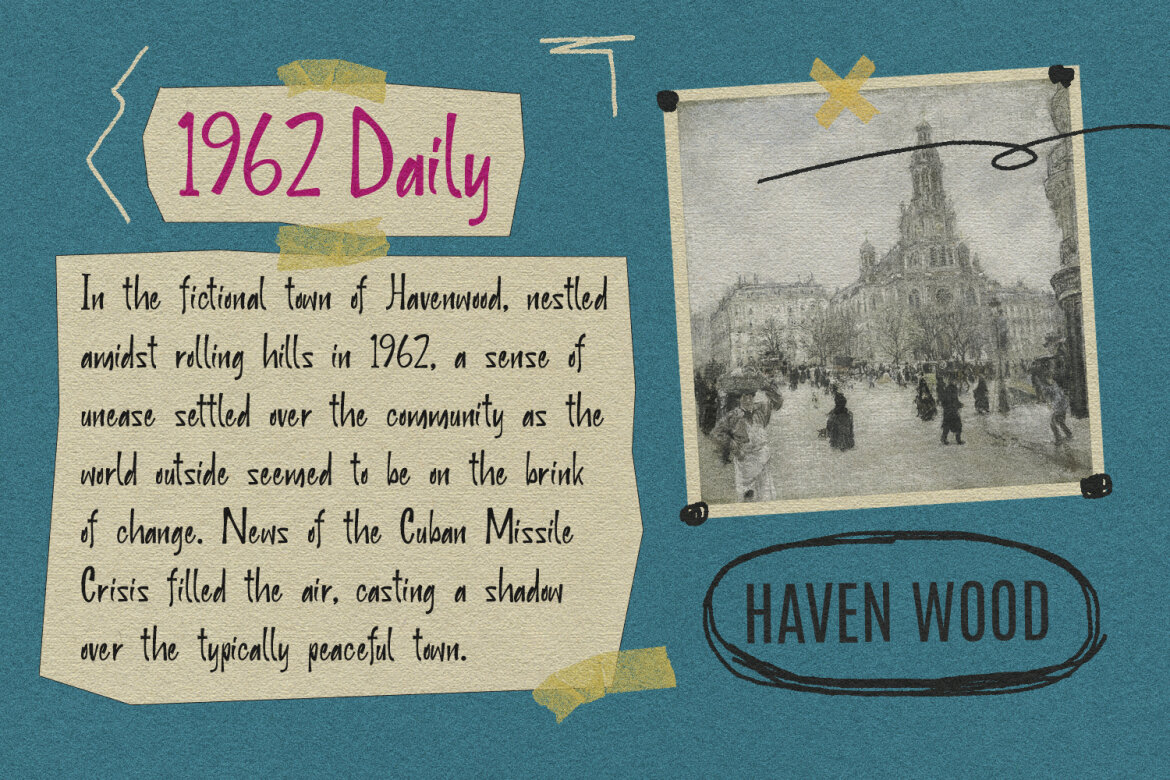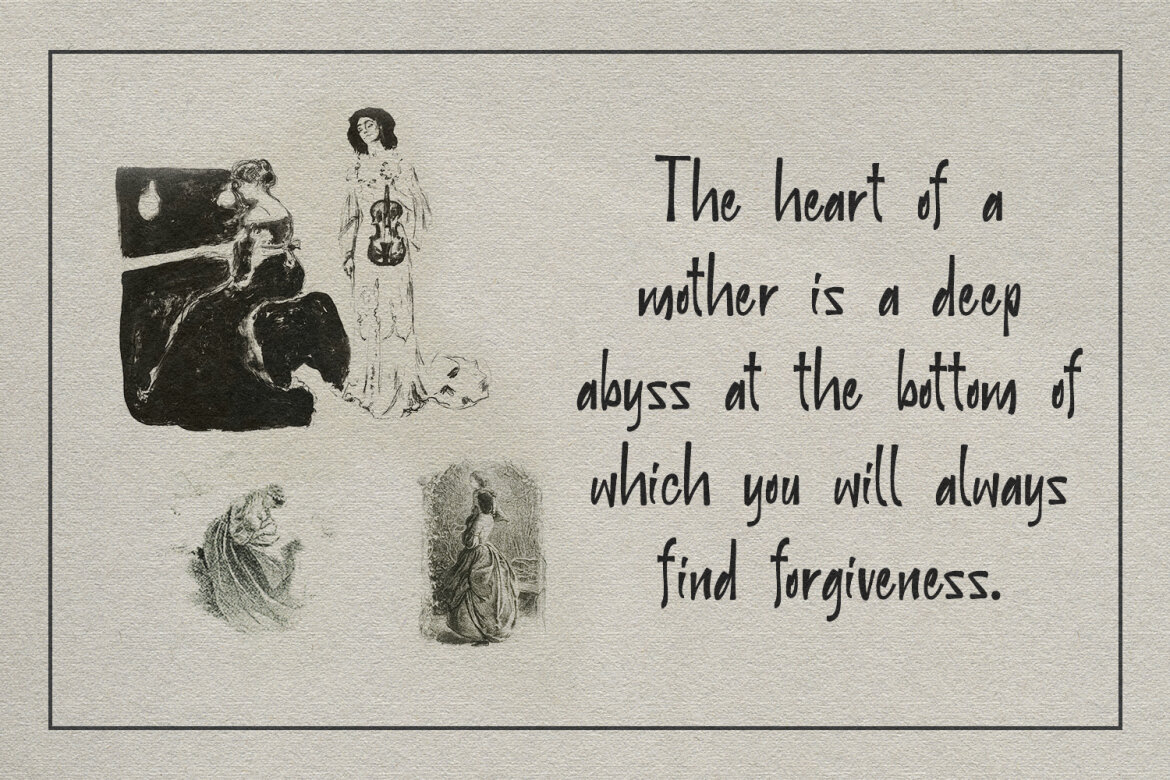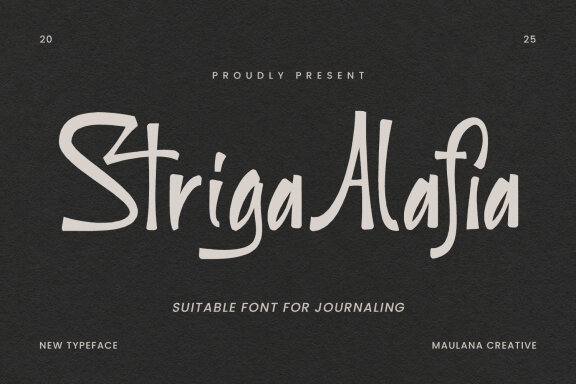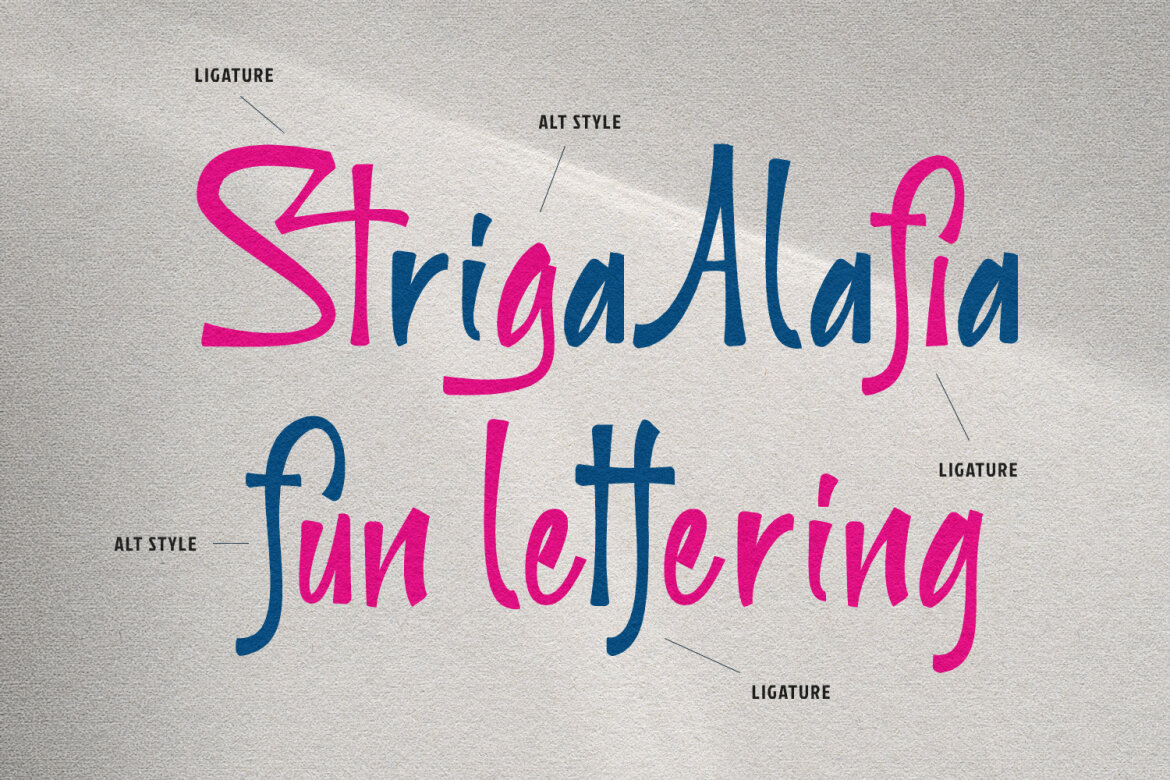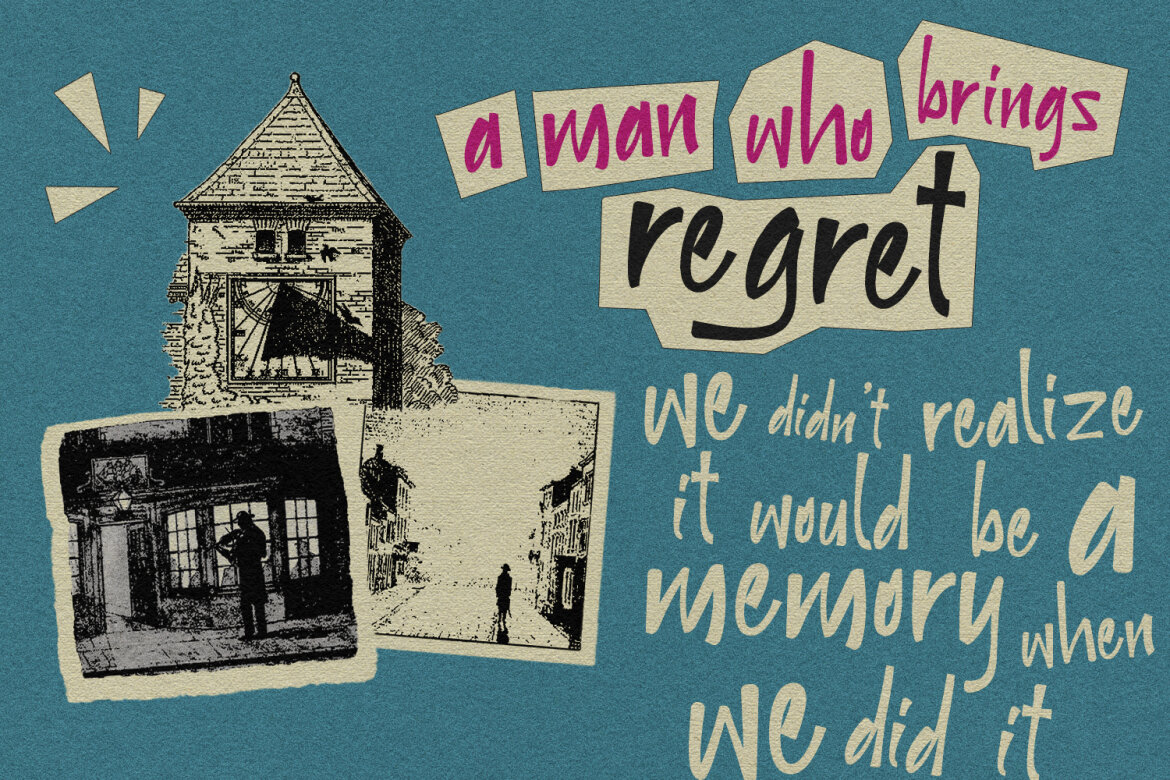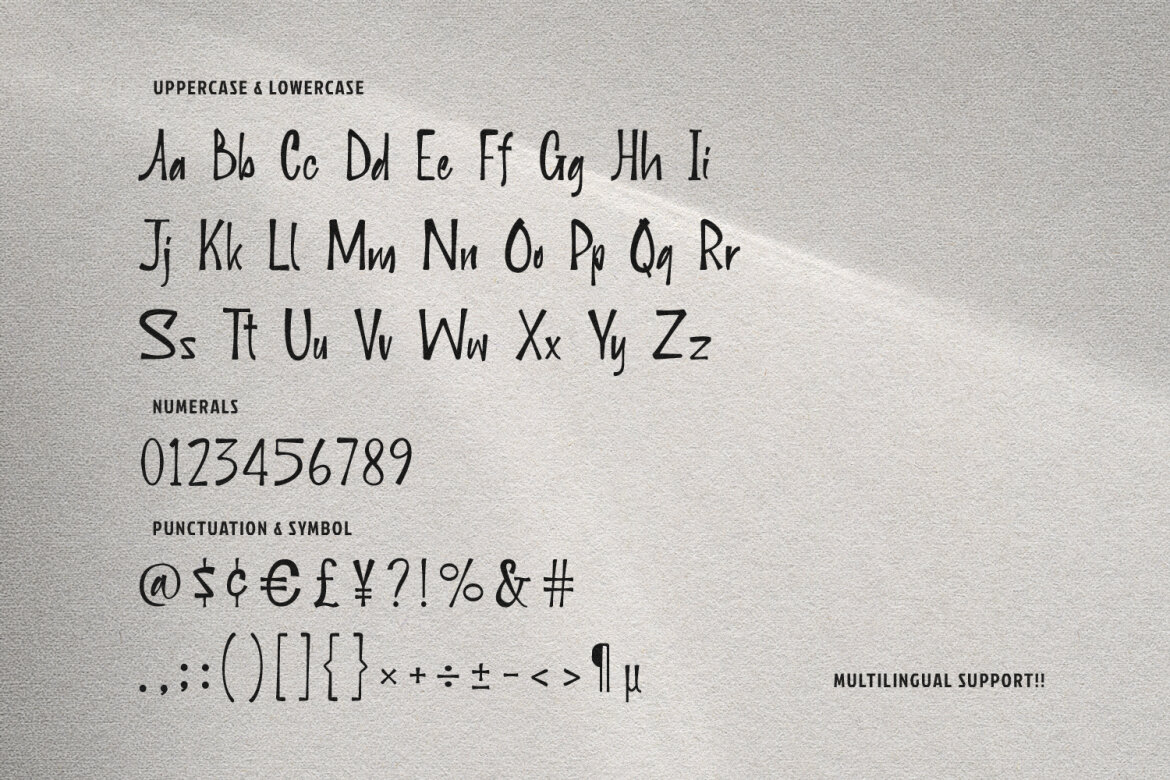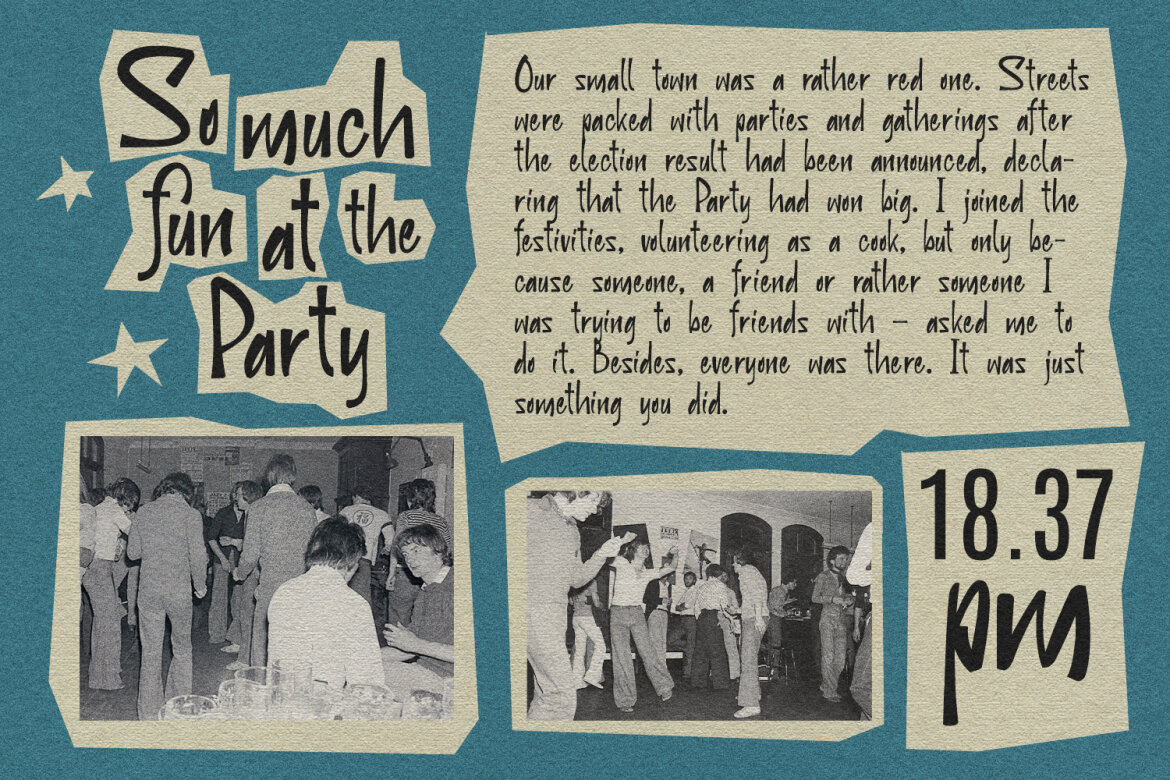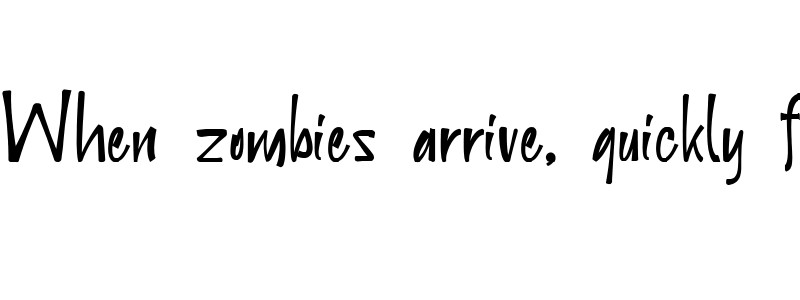
Striga Alafia FREE Font
Striga Alafia
Striga Alafia is a journaling vintage display font. Bold stroke, fun character with a bit of ligatures and alternates. To give you an extra creative work. Striga Alafia font support multilingual more than 100+ language. This font is good for logo design, Social media, Movie Titles, Books Titles, a short text even a long text letter and good for your secondary text font with script or serif. Make a stunning work with Striga Alafia font.